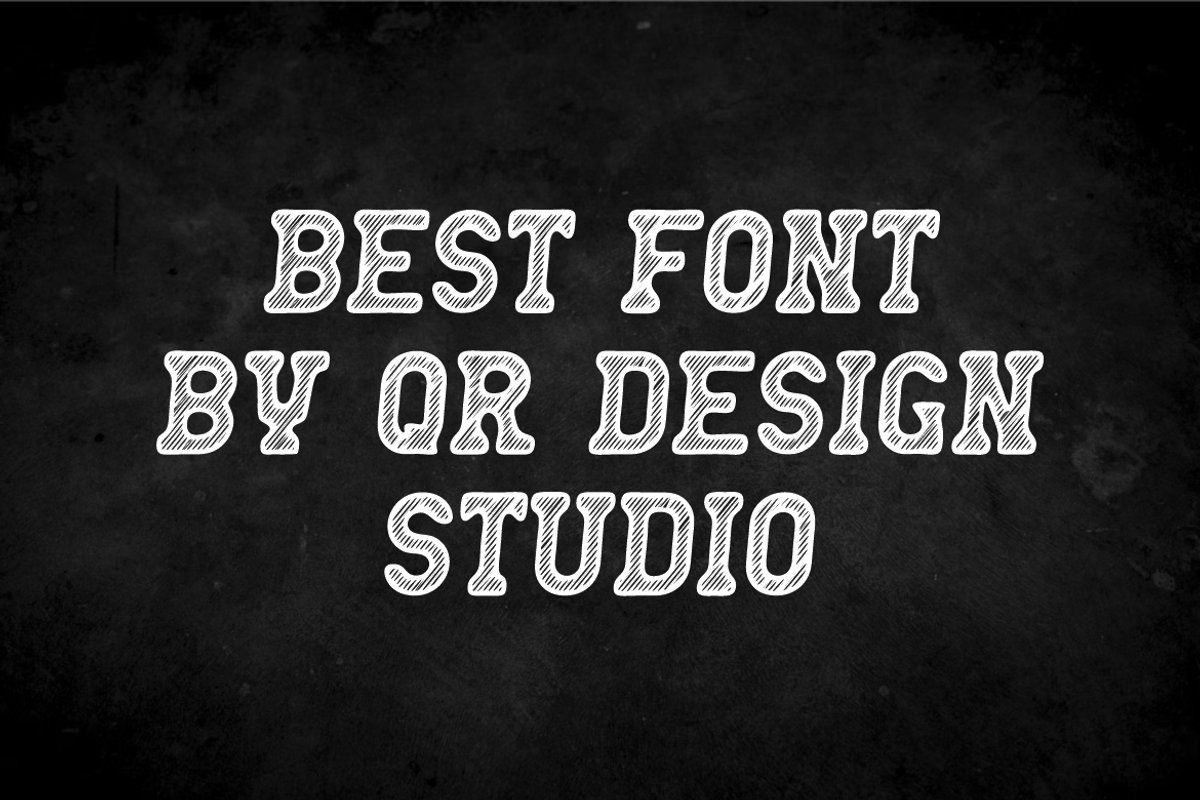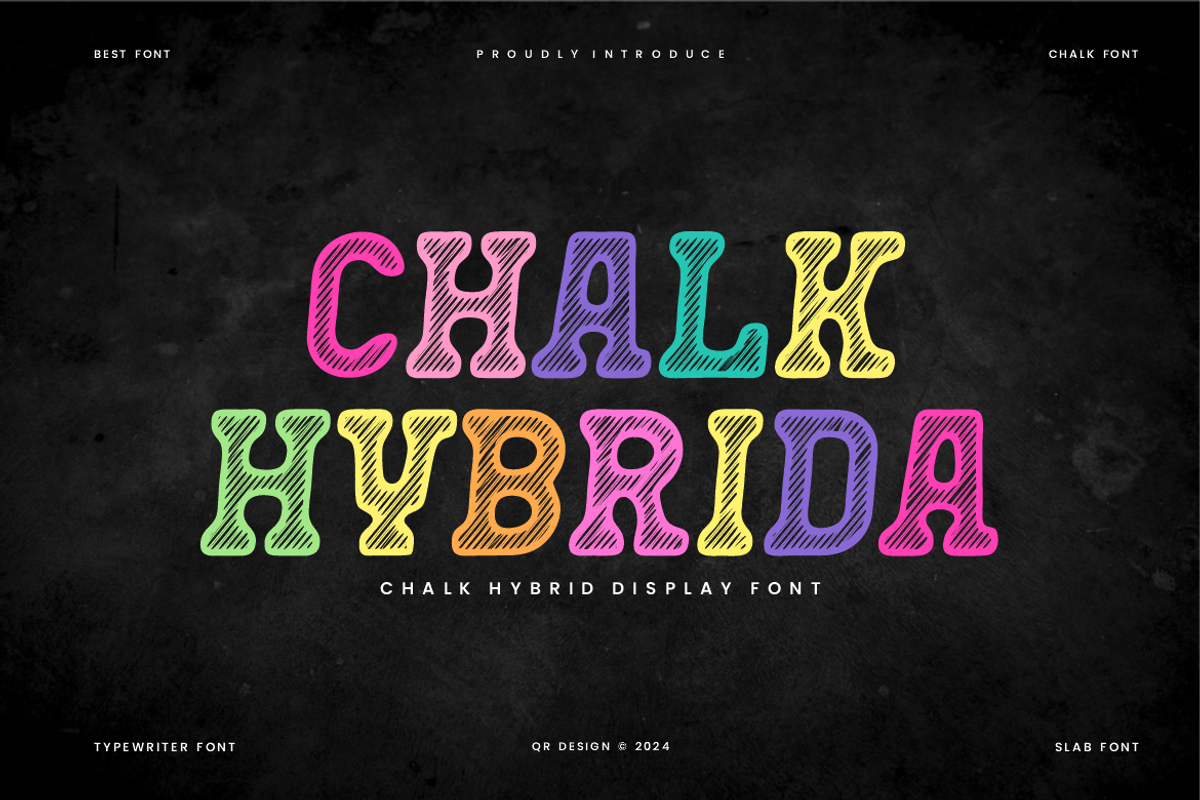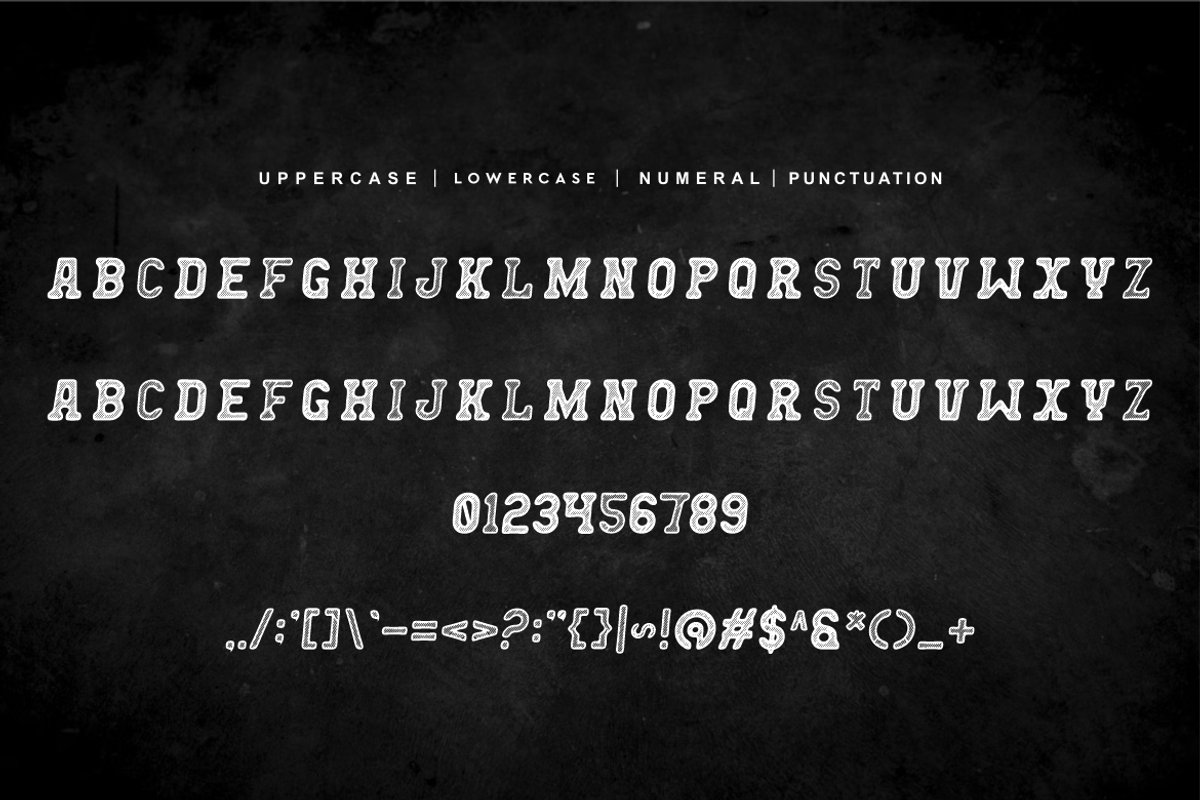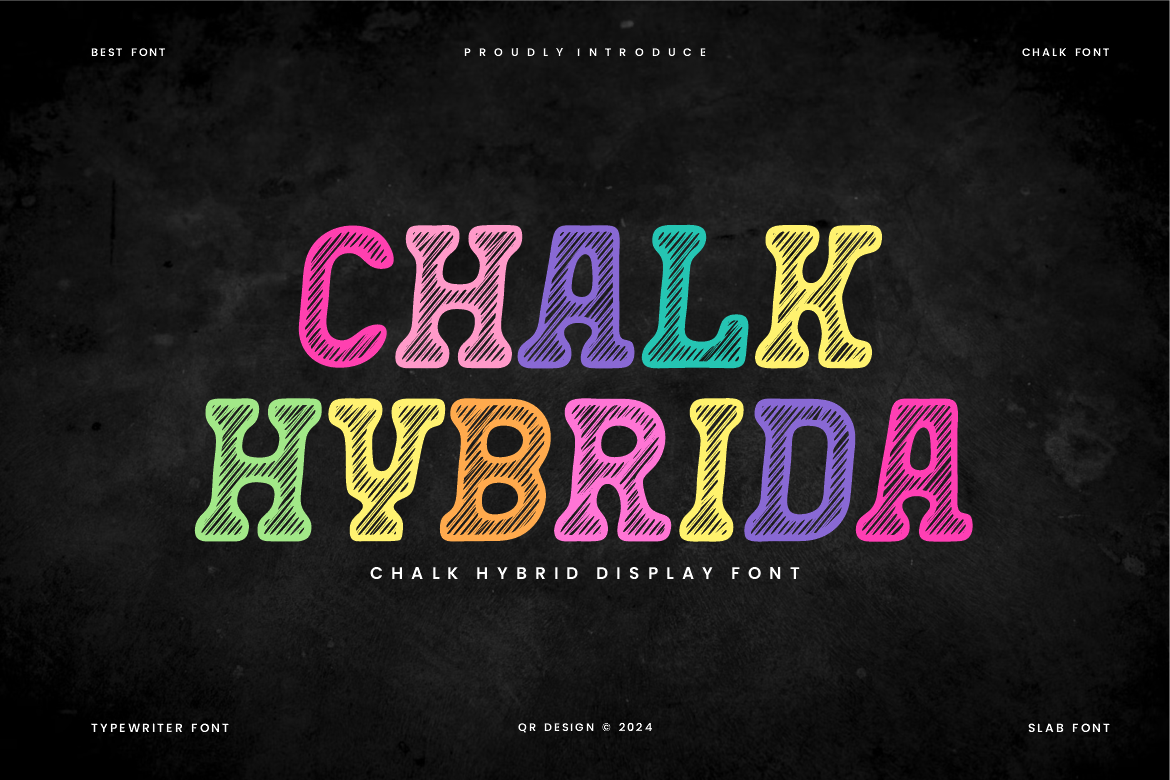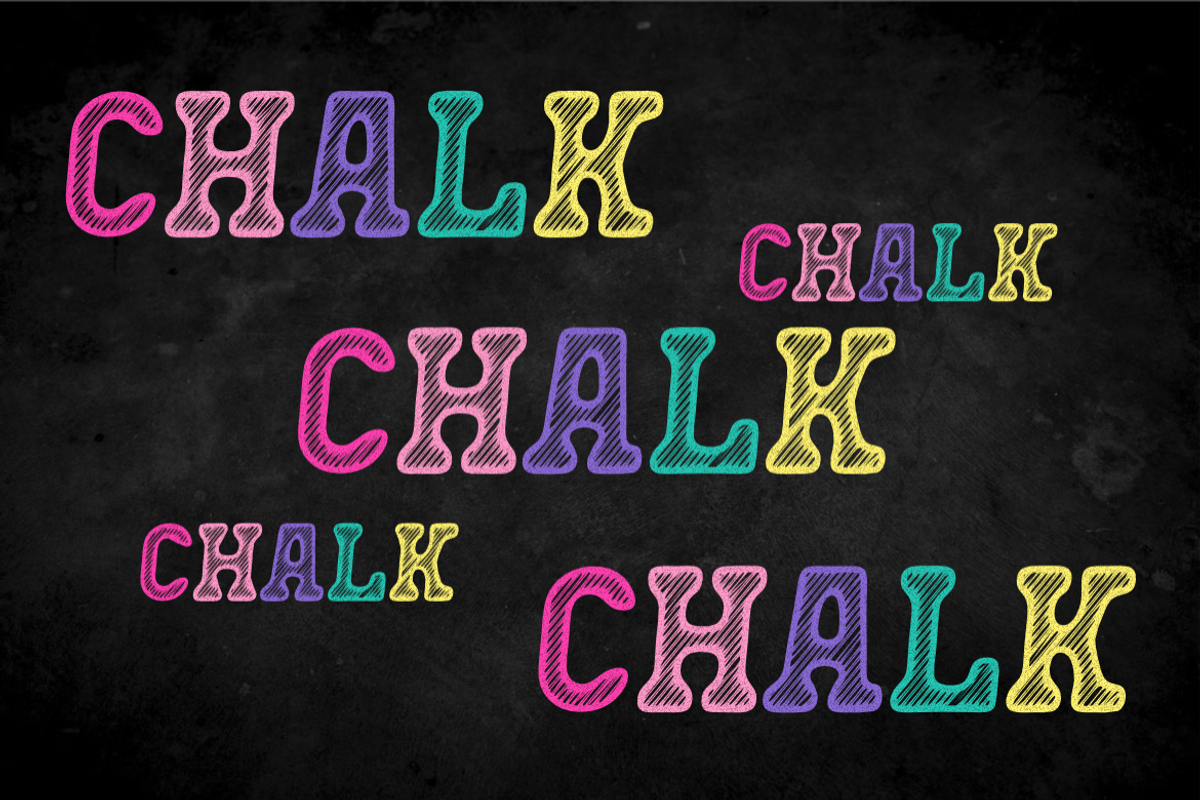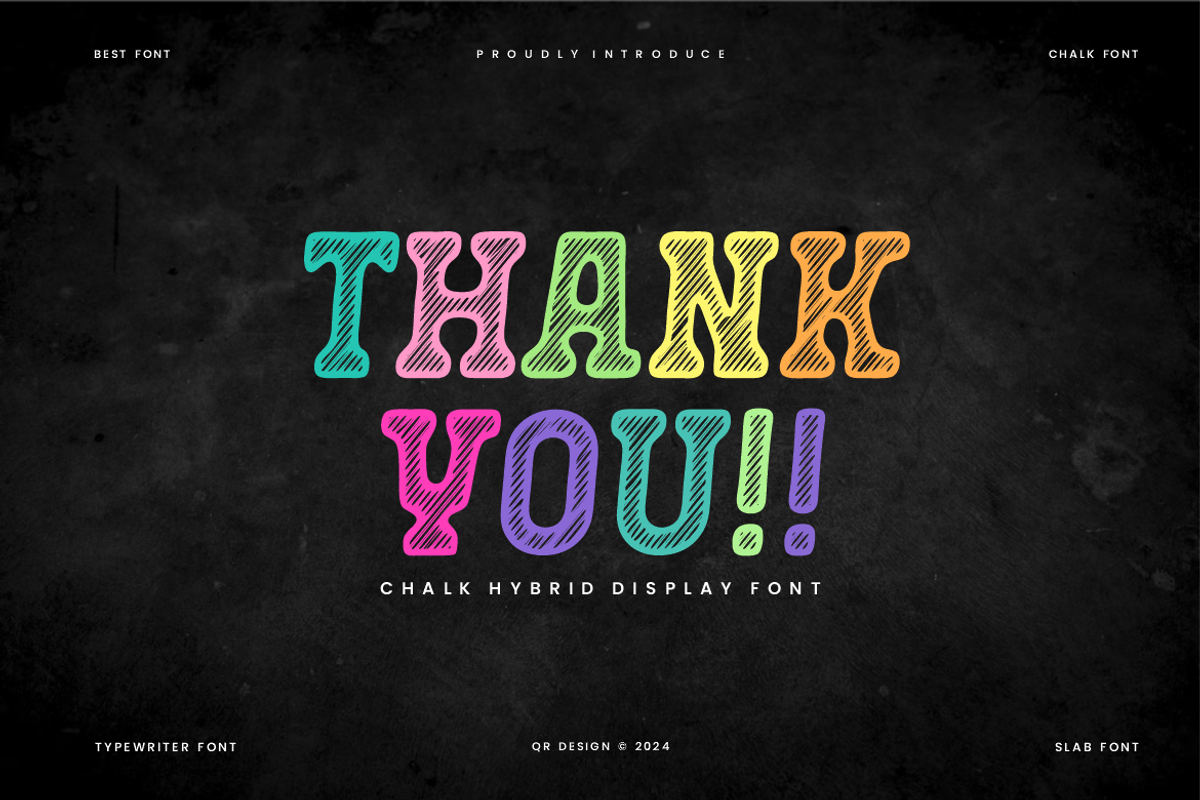
Chalk Hybrida Font
Chalk Hybrida Font is a bold and authentic display font. The font is suitable for any branding project like poster, logo, sport, and many more. Outstanding in a wide range of contexts.